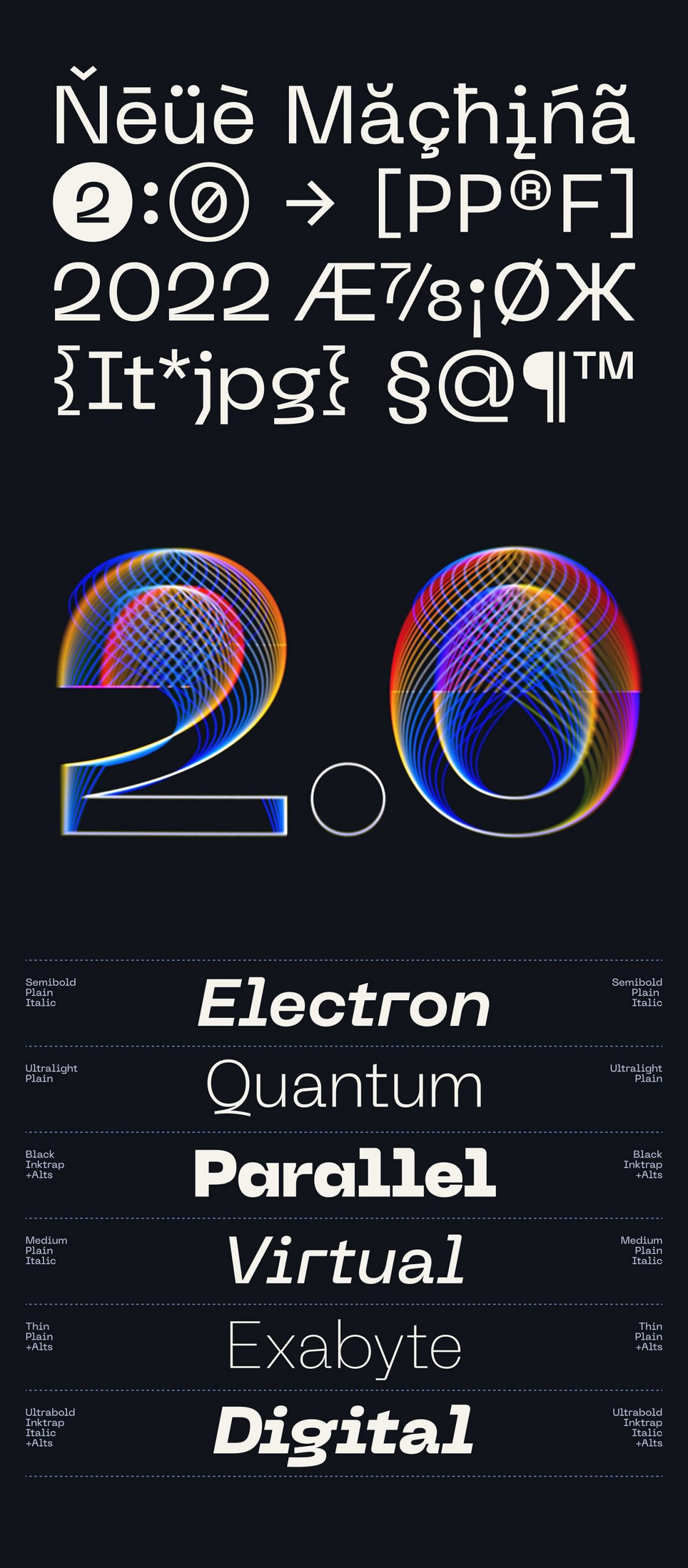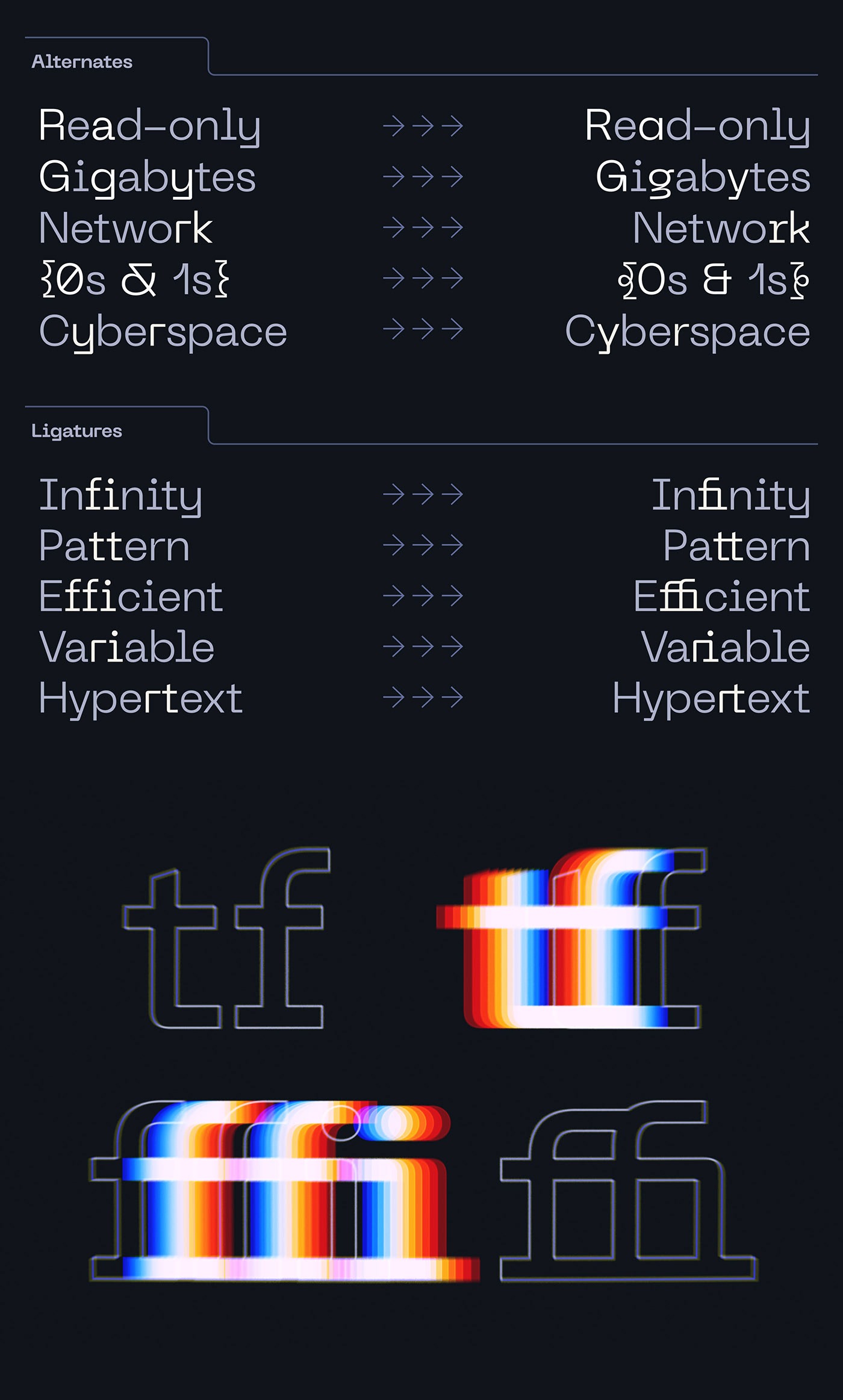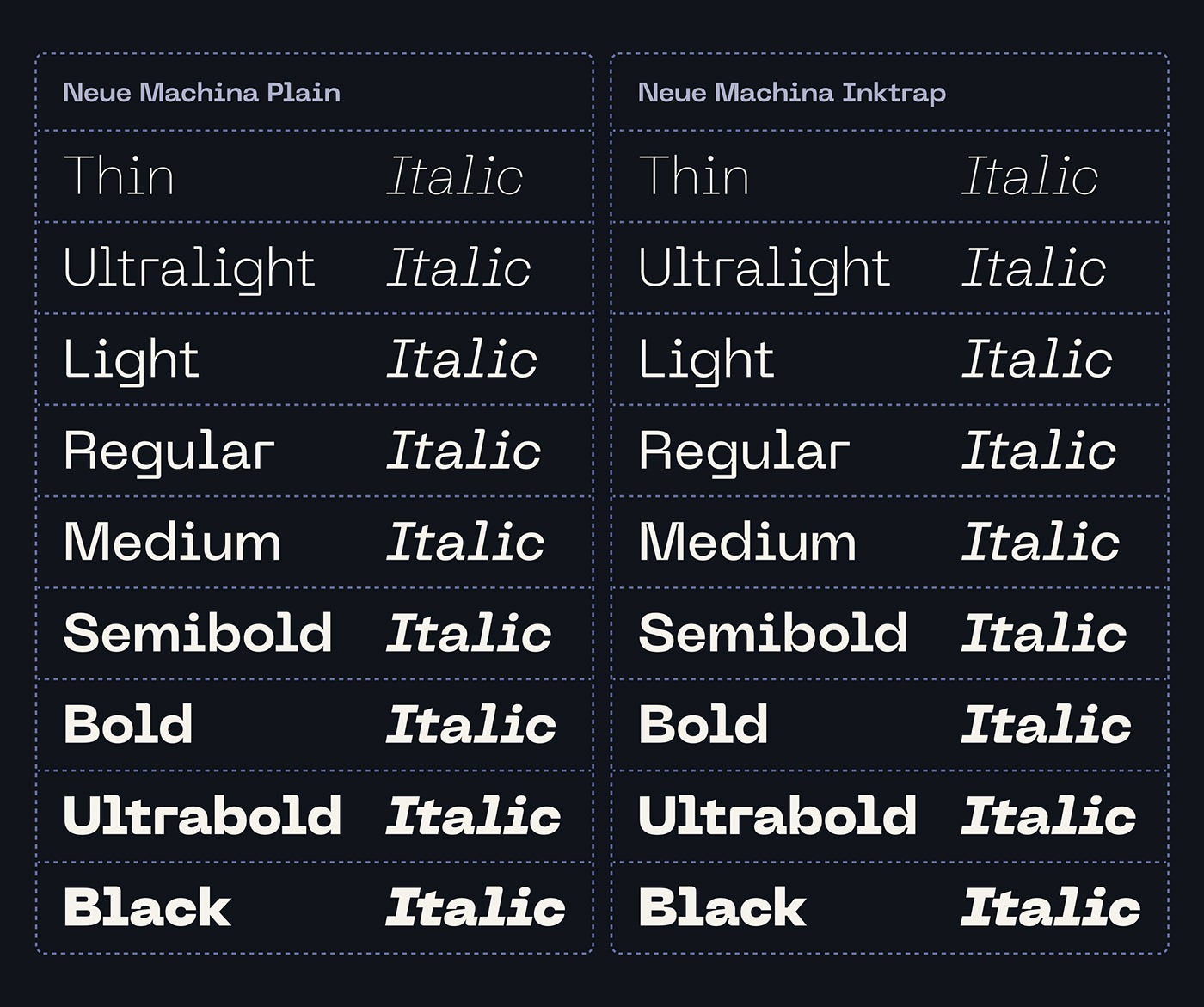
Neue Machina v2.0 Sans Serif Font
This is a bold sans serif font based on classic sans fonts. It is inspired by the aesthetics of robotics and machines. A font suited for the future of technology. It was design to be versatile, to blend in your designs in its lighter weights or to give them a lot of personality in its heavier ones.
It comes in a Inktrap cut as well as a Plain cut for your more subtle designs. Each cut comes with their corresponding italics and everything is variable for maximum versatility!